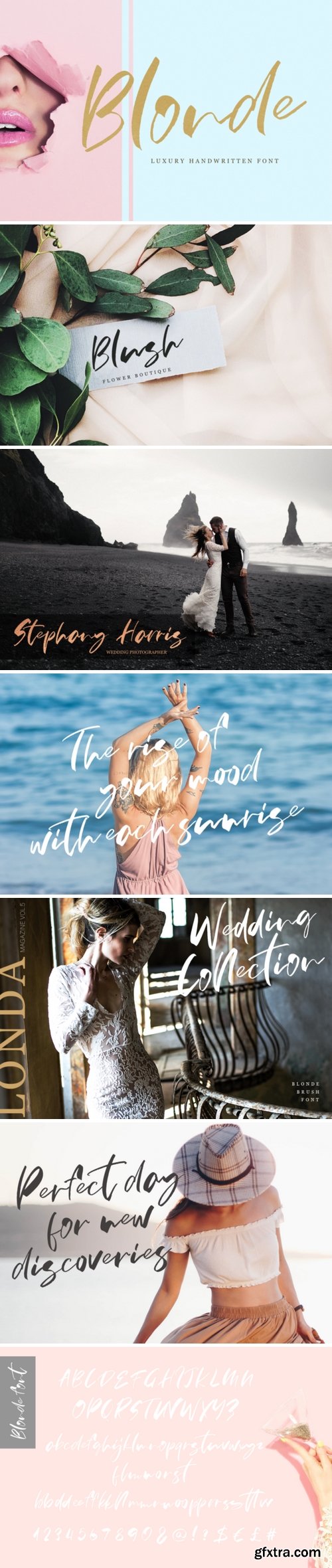
Fontbundles - Blonde 193170
Blonde is the ideal font for branding. It will allow you to add a decorative touch to your project and will work great with wedding invites and as a display on your blog. The Blonde font can also be used for creating stunning logos or personal quotes for your home. It also works great for small business branding, book covers, magazines, marketing materials and much more.